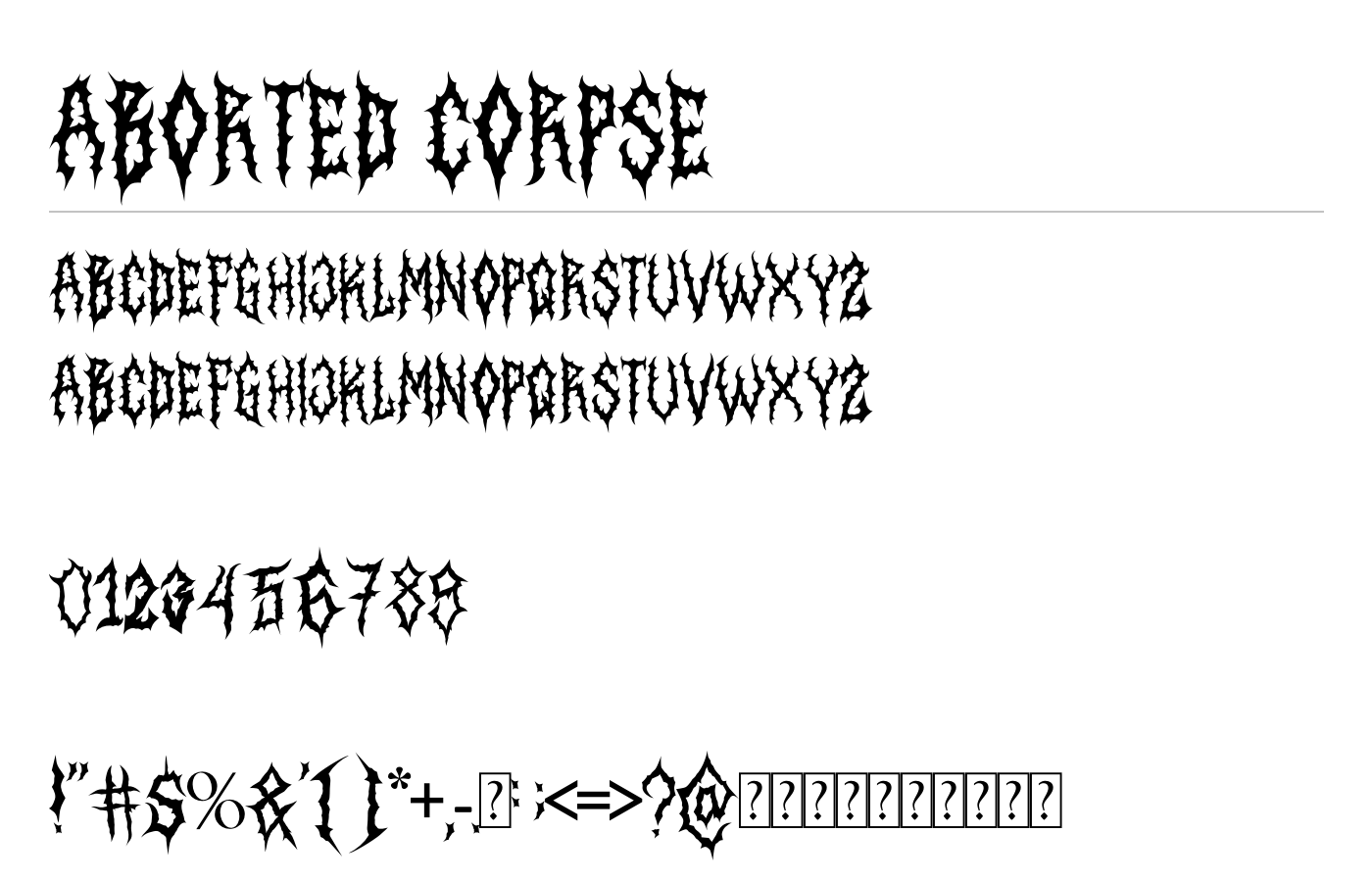
Aborted Corpse is a highly decorative, horror-themed display font with jagged, sharp edges that create a chilling and aggressive visual impact. It features condensed, uppercase letterforms with a heavy weight and rough, thorn-like strokes, making it perfect for attention-grabbing headlines, posters, or branding in the metal, horror, or dark-themed creative industries. This font’s intense style conveys a bold, eerie, and unsettling mood, ideal for designs that need to evoke fear or intensity.
| Font family | Aborted Corpse Font |
| Designer | Hamber Perdiansyah |